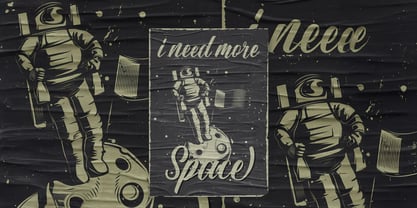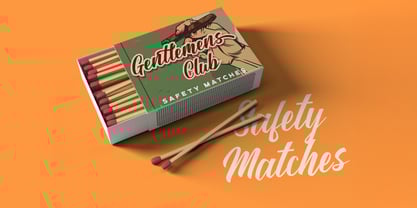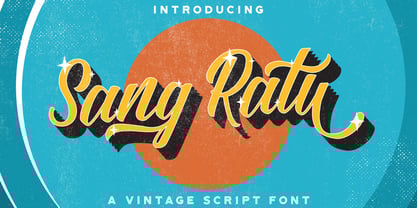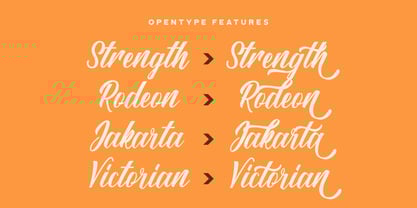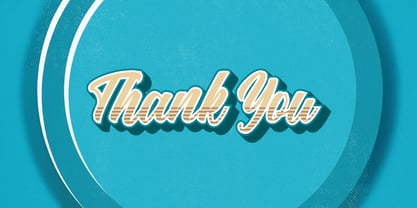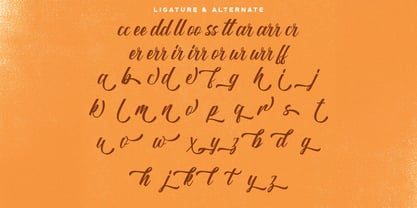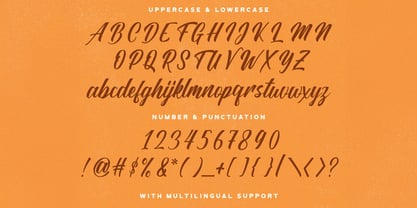
The Sang Ratu Font Family was designed by Virgiawan Listanto and published by Stringlabs Creative Studio. Sang Ratu contains 1 styles.
Sang Ratu is a luxurious vintage script font inspired by timeless elegance and royal charm. With flowing curves, graceful swashes, and a classic calligraphic feel, this font evokes the beauty of handwritten lettering from a bygone era.